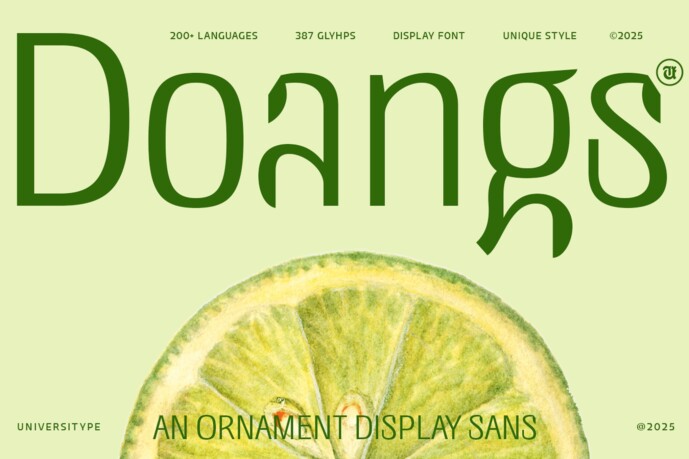
Doangs Font
Doangs is an expressive display typeface inspired by industrial sculpture. Abstract yet poetic, it translates the soft curves and tension of bent steel into typographic form. With its flowing asymmetry and handmade feel, Doangs is built for creatives who want to make a statement. Perfect for editorial layouts, posters, branding, album covers, and visual identities where art and type collide.
Inspiration Behind Doangs
Doangs draws inspiration from Nick Moran’s sculpture “263 Sonnet”, a minimalist metal form that captures both tension and grace. The sculpture’s ability to balance raw industrial materials with delicate, poetic flow was the spark that lit the creative fire for this typeface. Each curve, gap, and negative space in the sculpture felt like a character waiting to be born, where form doesn’t follow function, but emotion.
In translating this into type, every letter in Doangs was treated as a miniature sculpture. The design process involved sketching directly over the sculpture’s silhouette, extracting rhythmic gestures, and evolving them into glyphs with purpose and personality. This font doesn’t just represent text, it communicates structure, motion, and a tactile story. Doangs is more than a typeface; it’s a visual homage to the artistry of materials shaped by human intention.